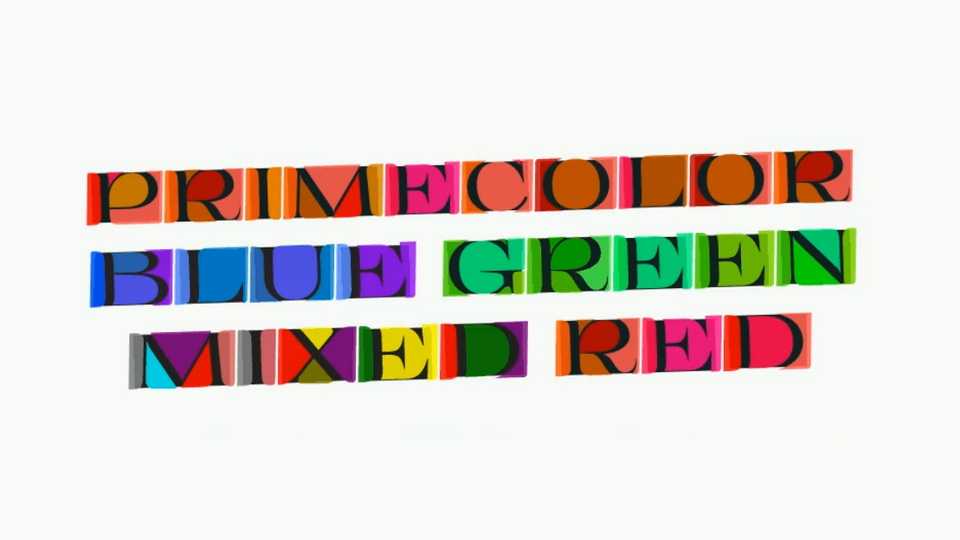
Download Primecolor font, an elegant color typeface that elevates your designs with sophistication and versatility. This unique font offers four variations—Red (R), Green (G), Blue (B), and Magenta (M)—allowing you to explore a spectrum of hues and tones to suit your creative vision.
Designer: Grzegorz Luk